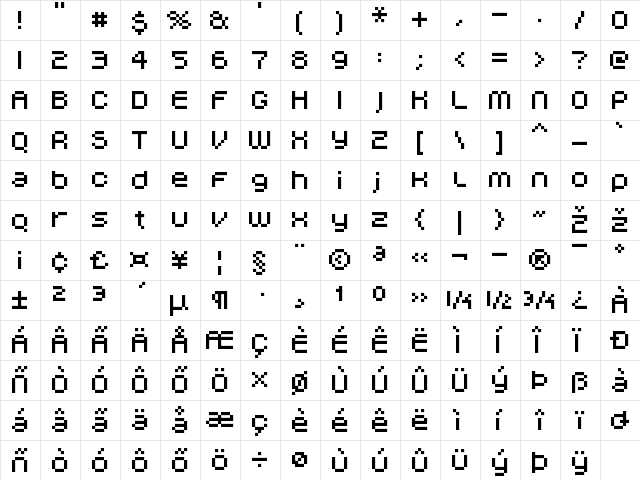
FFF Nadador Regular
| Foundry | Fonts For Flash |
| Designer | Fonts For Flash |
FFF Nadador is a composed and adaptable typeface that performs quietly and consistently across a wide range of design contexts.